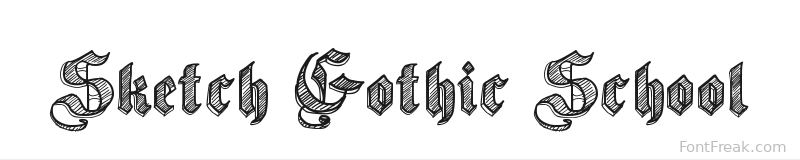
Sketch Gothic School
Sketch Gothic School is a unique display typeface designed by Galdino Otten in 2013, characterized by its artistic, hand-drawn aesthetic. This font falls under the decorative category, with a distinct gothic style that exudes creativity and charm. The strokes feature varying weights, providing a dynamic appearance that captures attention. Its intricate details and ornamental flourishes make it a standout choice for projects requiring a touch of whimsy.
The visual characteristics of Sketch Gothic School are compelling; the font showcases a blend of sharp angles and flowing curves, giving it a playful yet sophisticated look. The spacing is thoughtfully balanced, allowing each letter to breathe while maintaining a cohesive flow. The decorative elements, such as swirls and embellishments, enhance its artistic feel, making it particularly suitable for creative applications.
This font is ideal for a variety of use cases, including wedding invitations that call for a romantic flair, movie posters that need an edgy yet classic vibe, and restaurant menus that strive for a unique, thematic presentation. Additionally, it works well for crafting eye-catching logos, providing businesses with an identity that stands out in a crowded market. The target audience for Sketch Gothic School includes graphic designers, small business owners, and content creators looking for a distinctive typeface to elevate their projects.
In a world filled with conventional fonts, Sketch Gothic School font free download offers a refreshing alternative that allows for artistic expression. Its combination of gothic elements and sketch-like qualities makes it an exceptional choice for anyone seeking to add a creative touch to their designs. Whether you’re working on print or digital projects, this font is sure to leave a lasting impression.